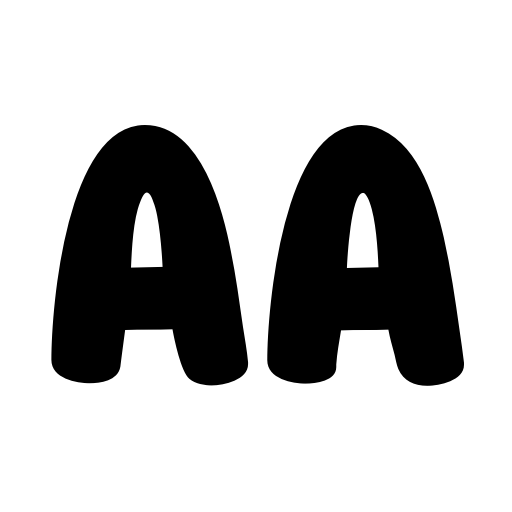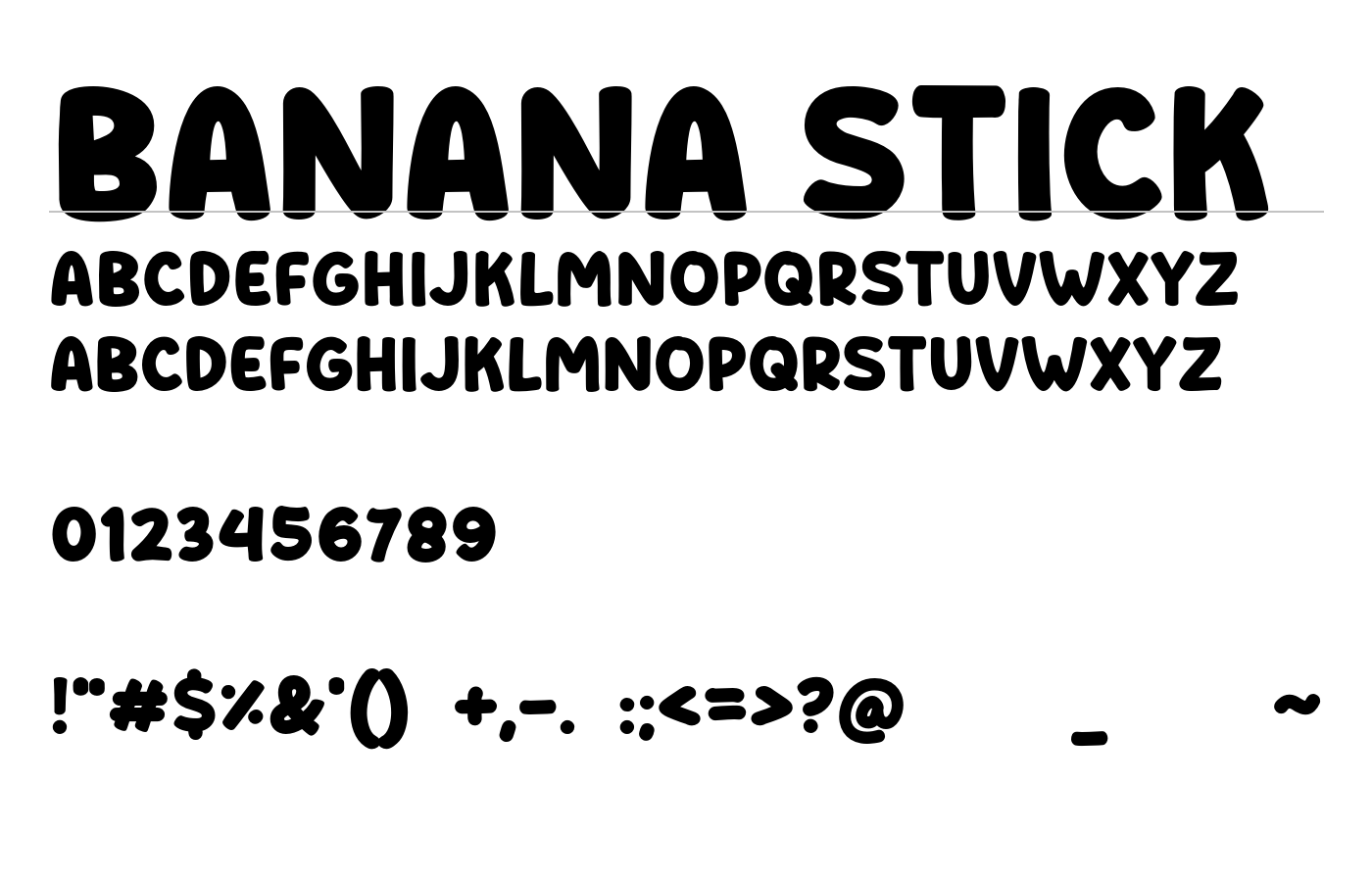
Banana Stick is a bold, playful sans serif font with rounded, chunky letterforms that give it a friendly and informal vibe. Its wide, even strokes and simple shapes make it ideal for casual design projects, children’s materials, and fun branding that needs to feel approachable and energetic. This font works best in headlines, logos, and packaging where a cheerful, eye-catching style is desired.
Banana Stick Font
About Banana Stick Font